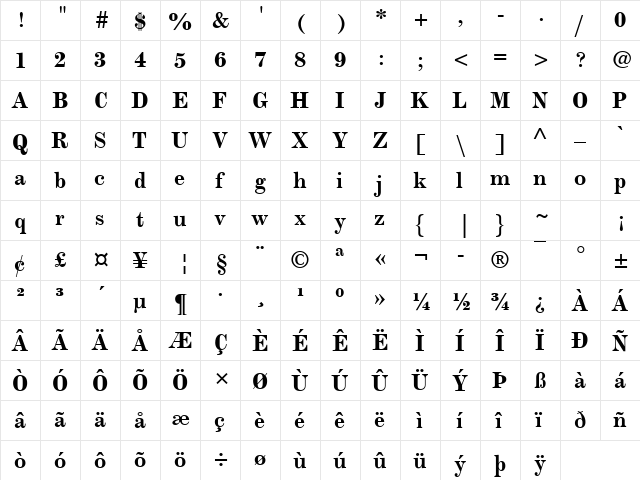
ModernMT Bold Regular Font Preview
ModernMT Bold Regular
ModernMT Bold Regular Font Details
| Foundry | Agfa Monotype Corporation |
Design Context for ModernMT Bold Typeface
ModernMT Bold takes a measured approach to typography — its balanced proportions and neutral character make it a reliable workhorse for both digital and print work. Its bold stroke weight gives it real presence on the page.